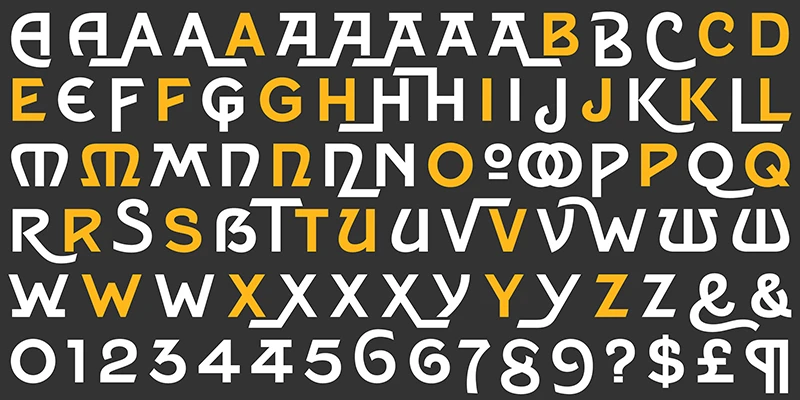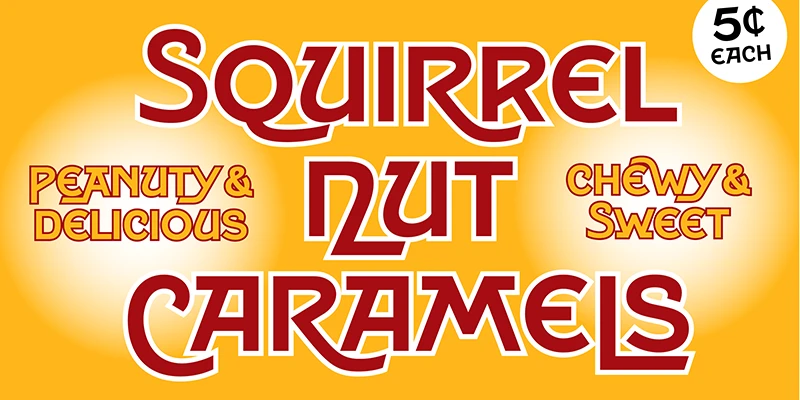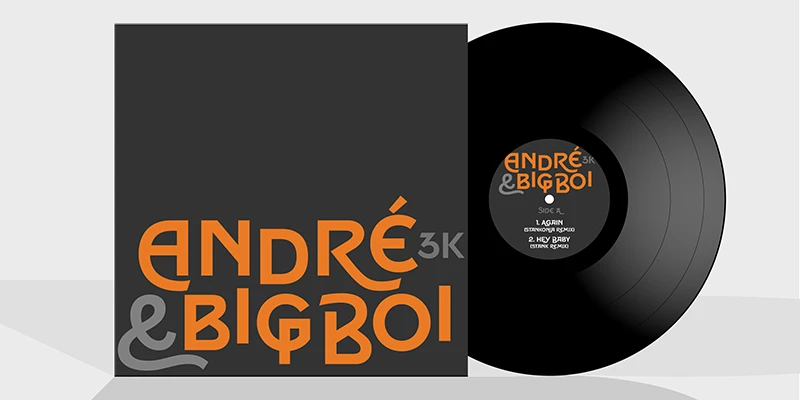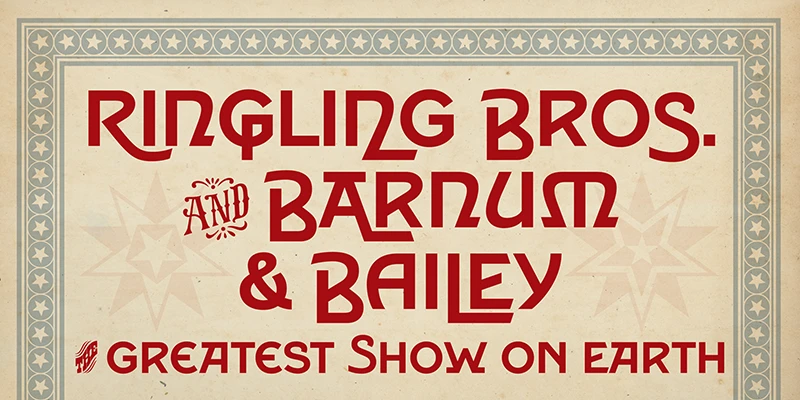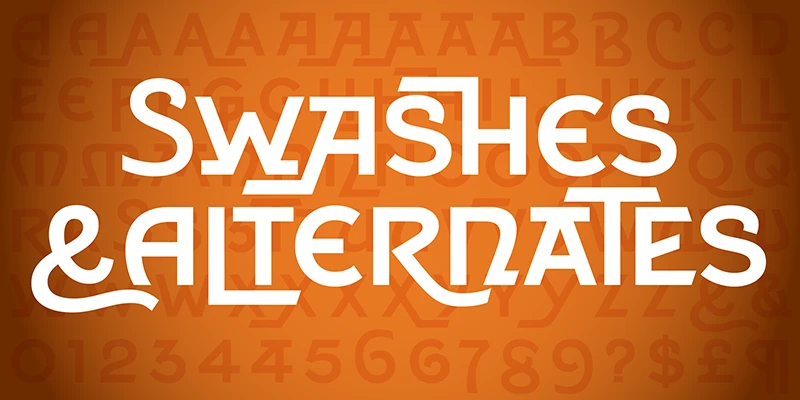
HWT Tangent, a modern font with a 200-year-old legacy, features nesting letters, numerous alternates, and double-Os. Inspired by the 1800s wood type Tangent from the Cary Graphic Arts Collection at RIT, designer Patrick Griffin expanded it to over 500 glyphs, including ten alternates for the letter A. The font’s ascenders and descenders support smaller letters, allowing for creative spacing and versatility. The dynamism of Tangent lies in its unique letterforms and your skill in combining them.
Designed by Patrick Griffin